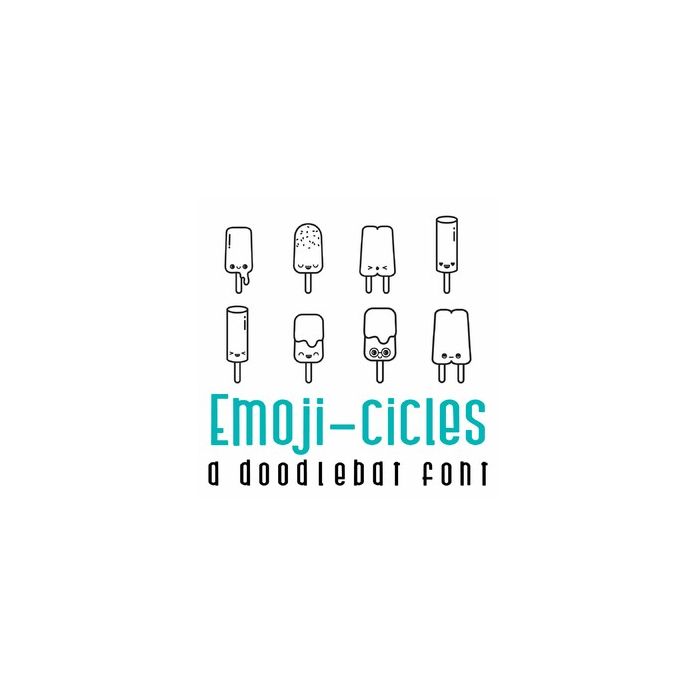
Emoji-cicles Doodlebat Font
This fun doodlebat font features 26 emoji style popsicles. Perfect for cards, gifts, decor, crafts, scrap book pages, planner stickers and more!